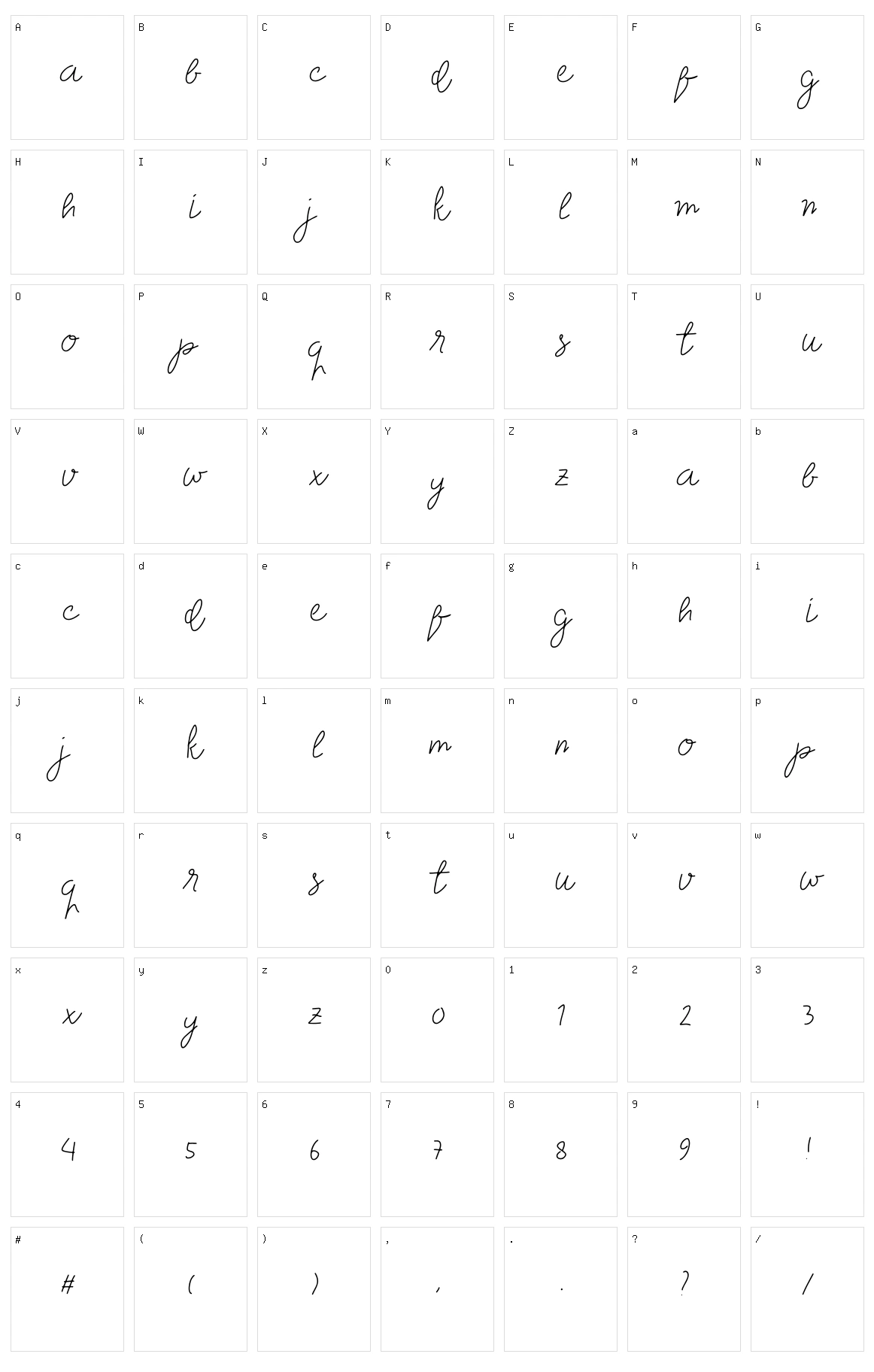
The free font Class Wk is carefully designed by hati, showcasing a thoughtful balance of creativity and usability and falls under the Script font style. When you download the ZIP file, it contains only 7.69 KB of font files, making it lightweight and quick to download. Please review the license details below to understand permitted usage and distribution rights. If license information is not available, we recommend using this font for personal projects only or contacting the author directly for commercial usage permissions.